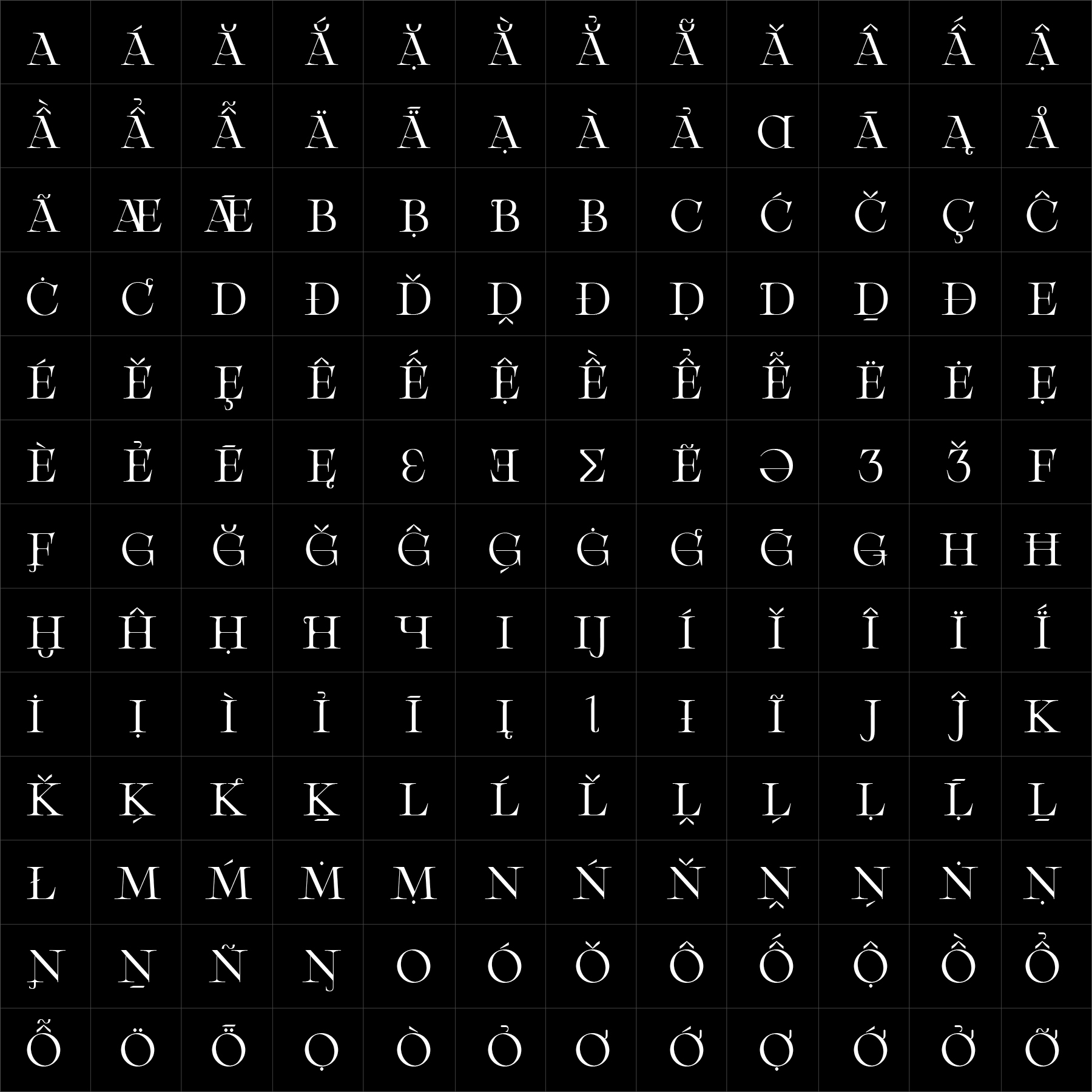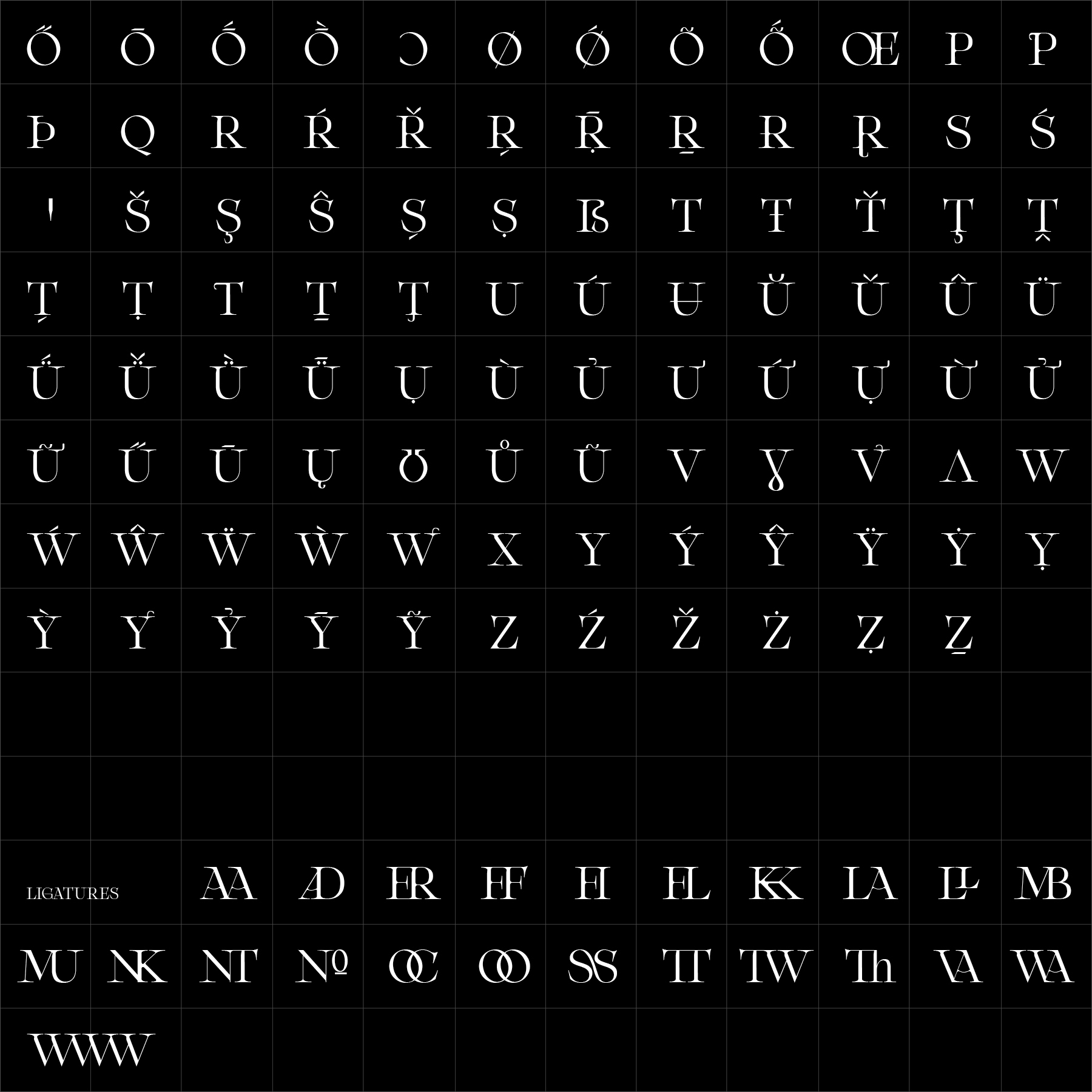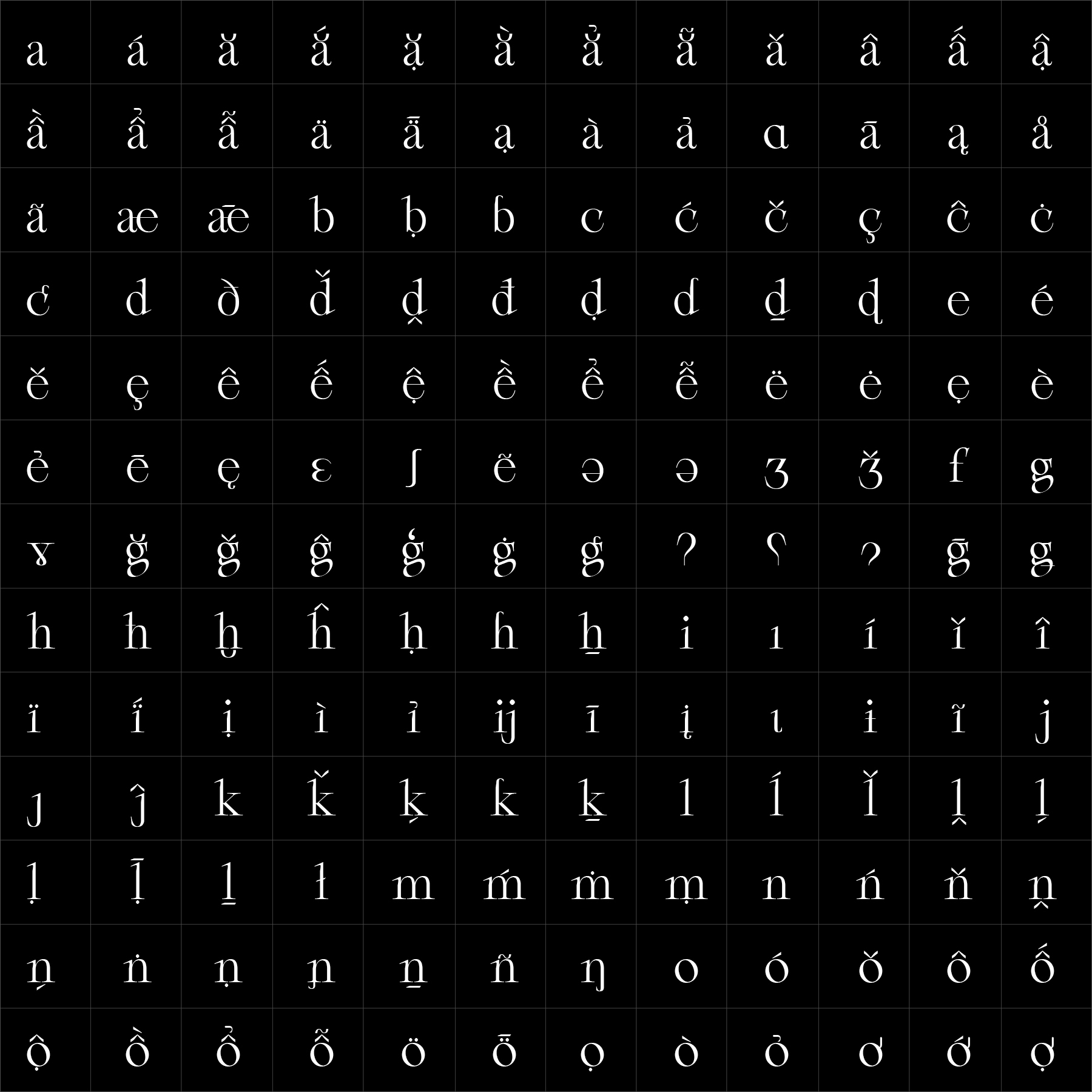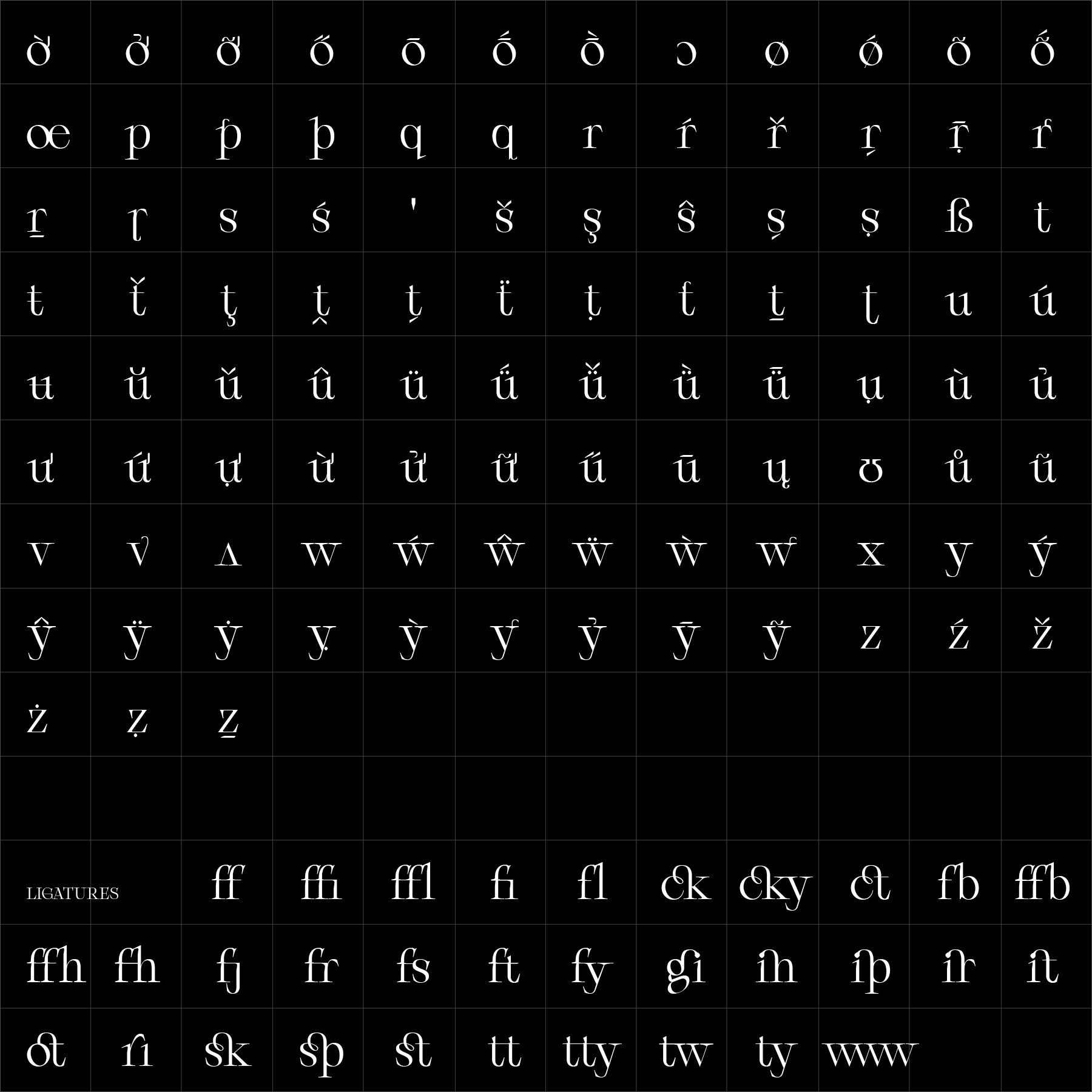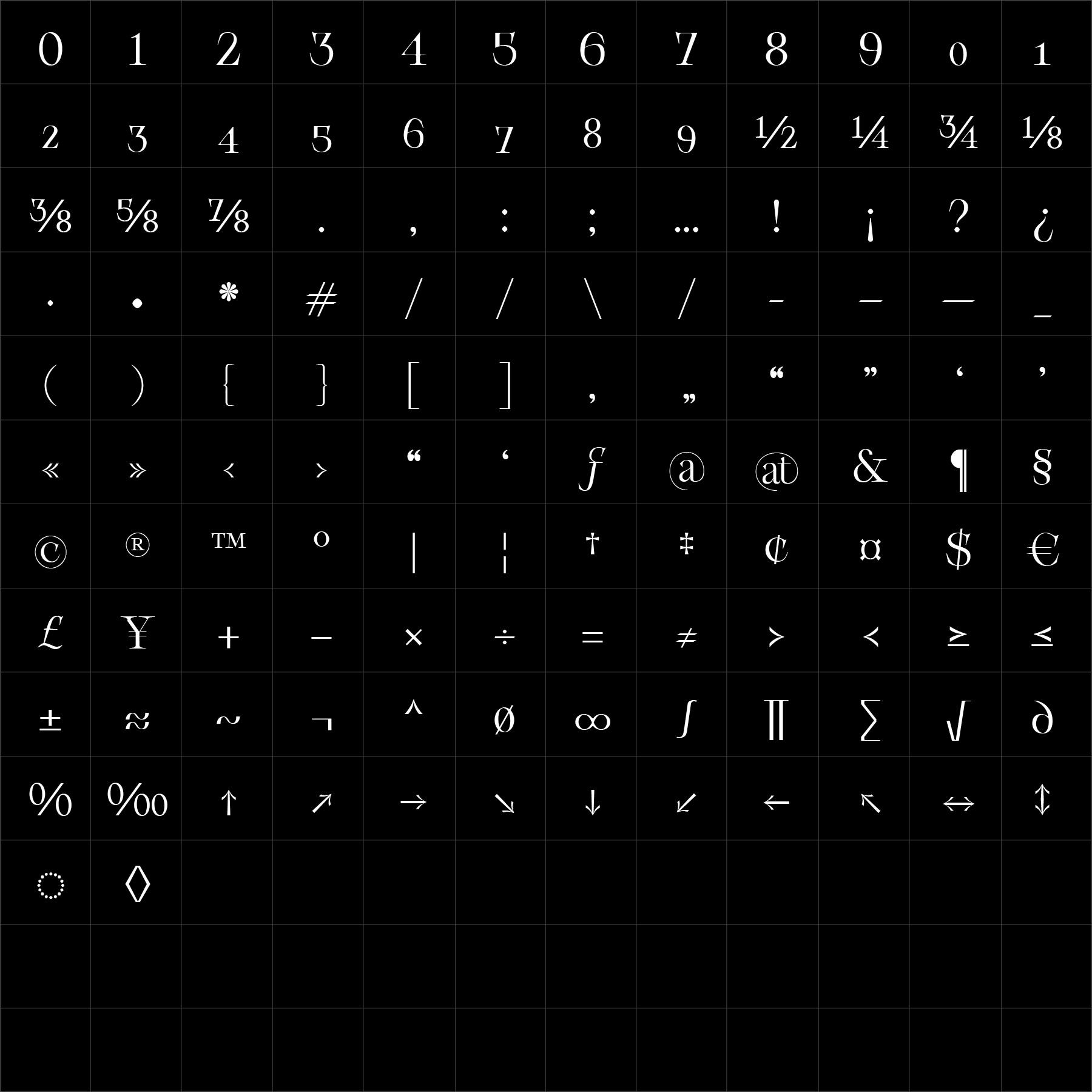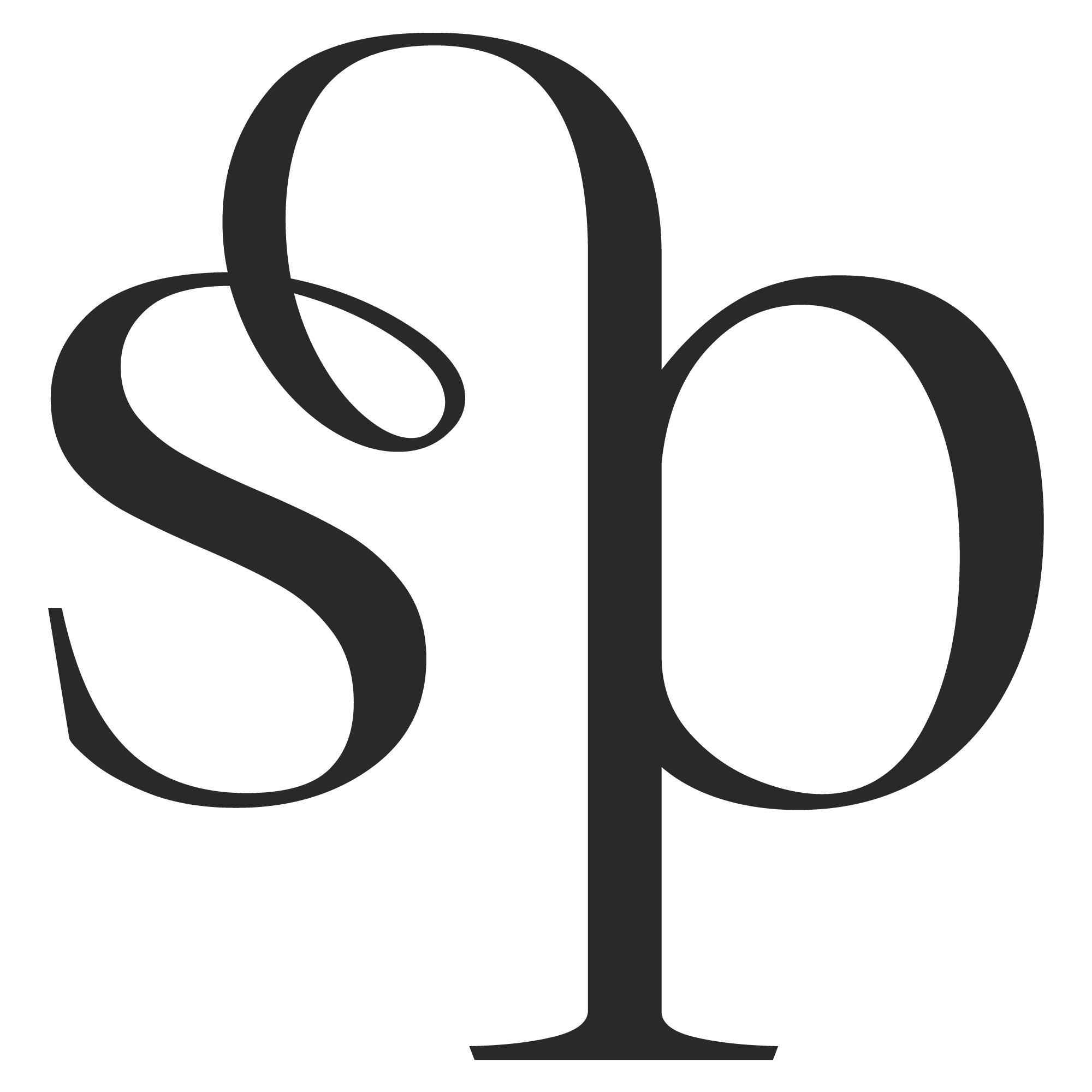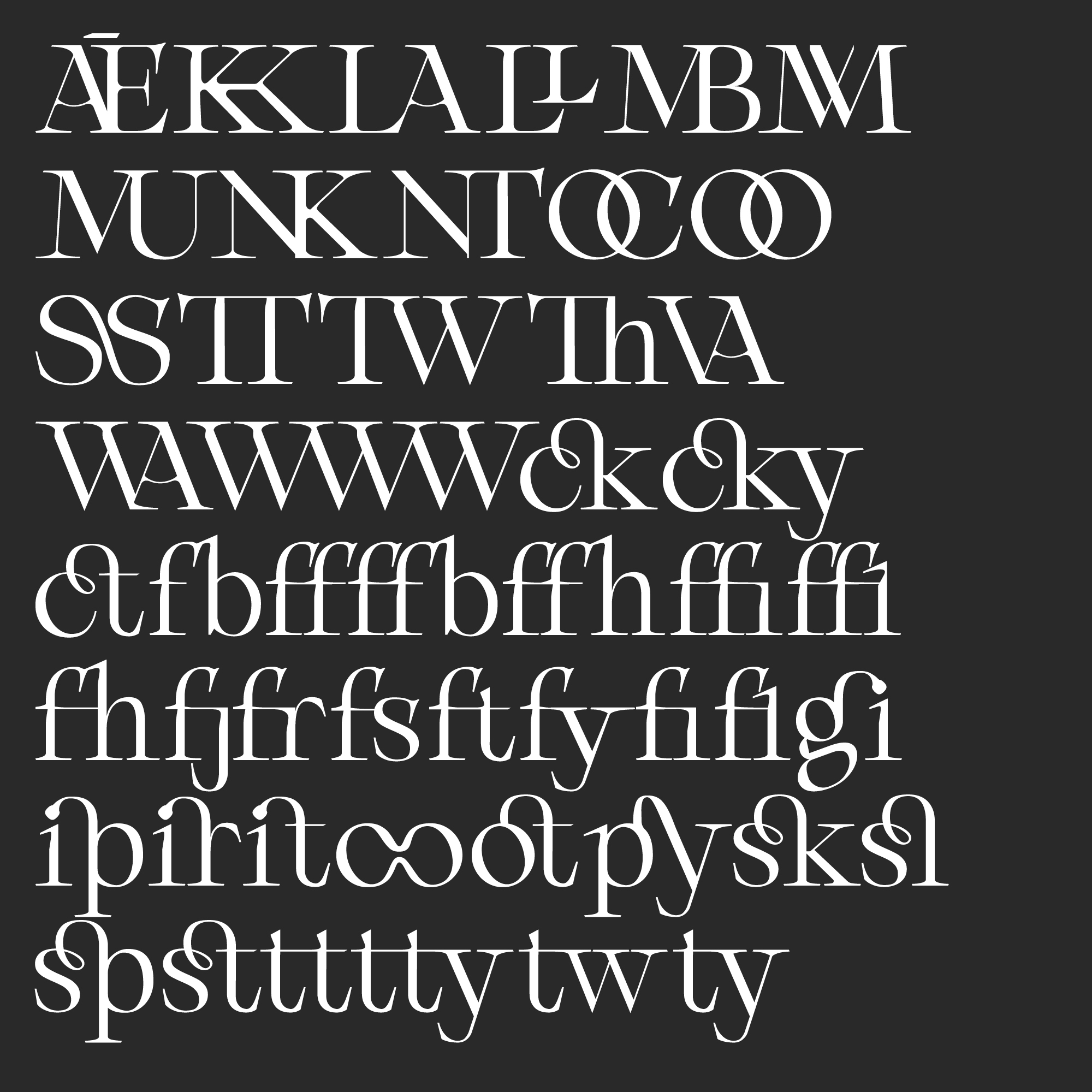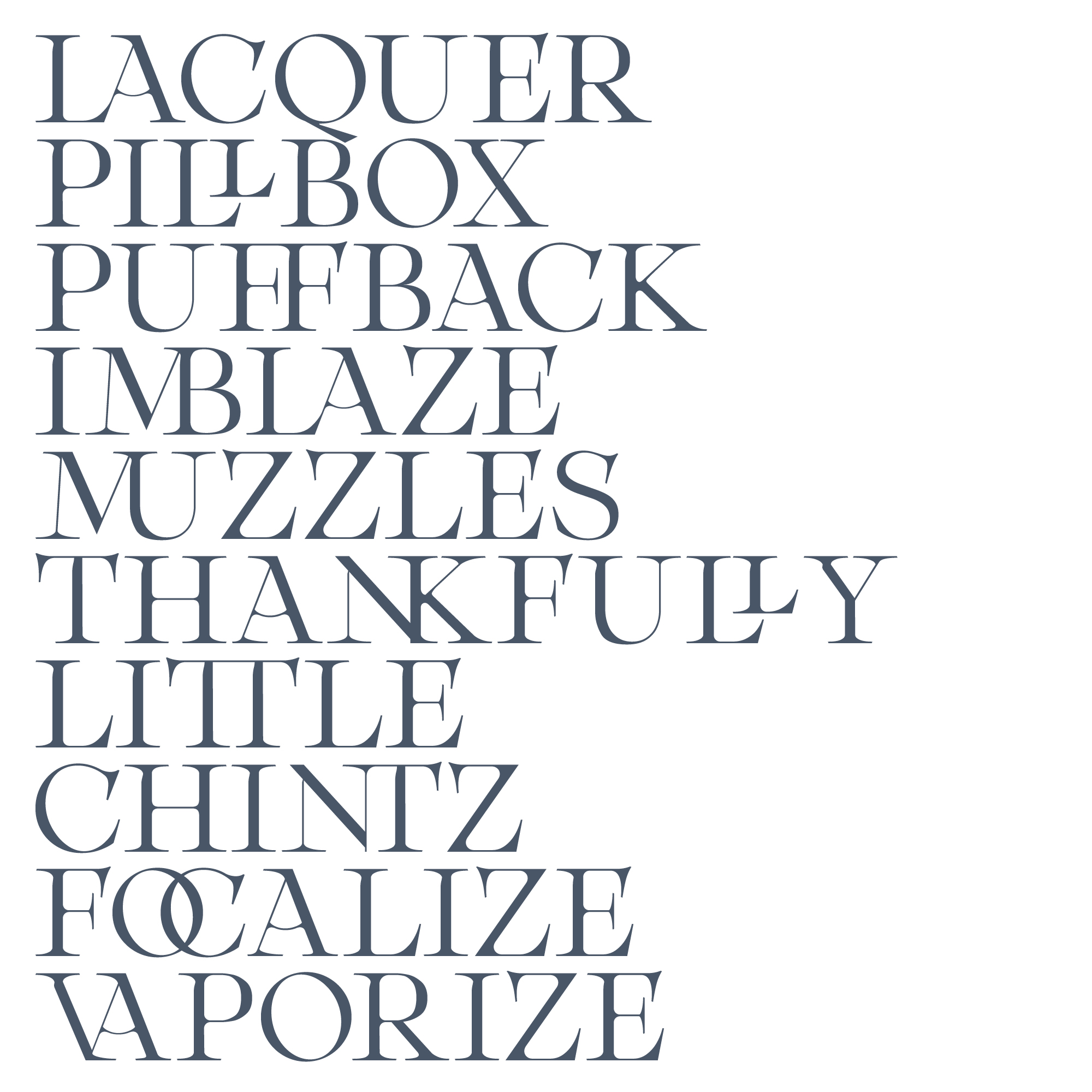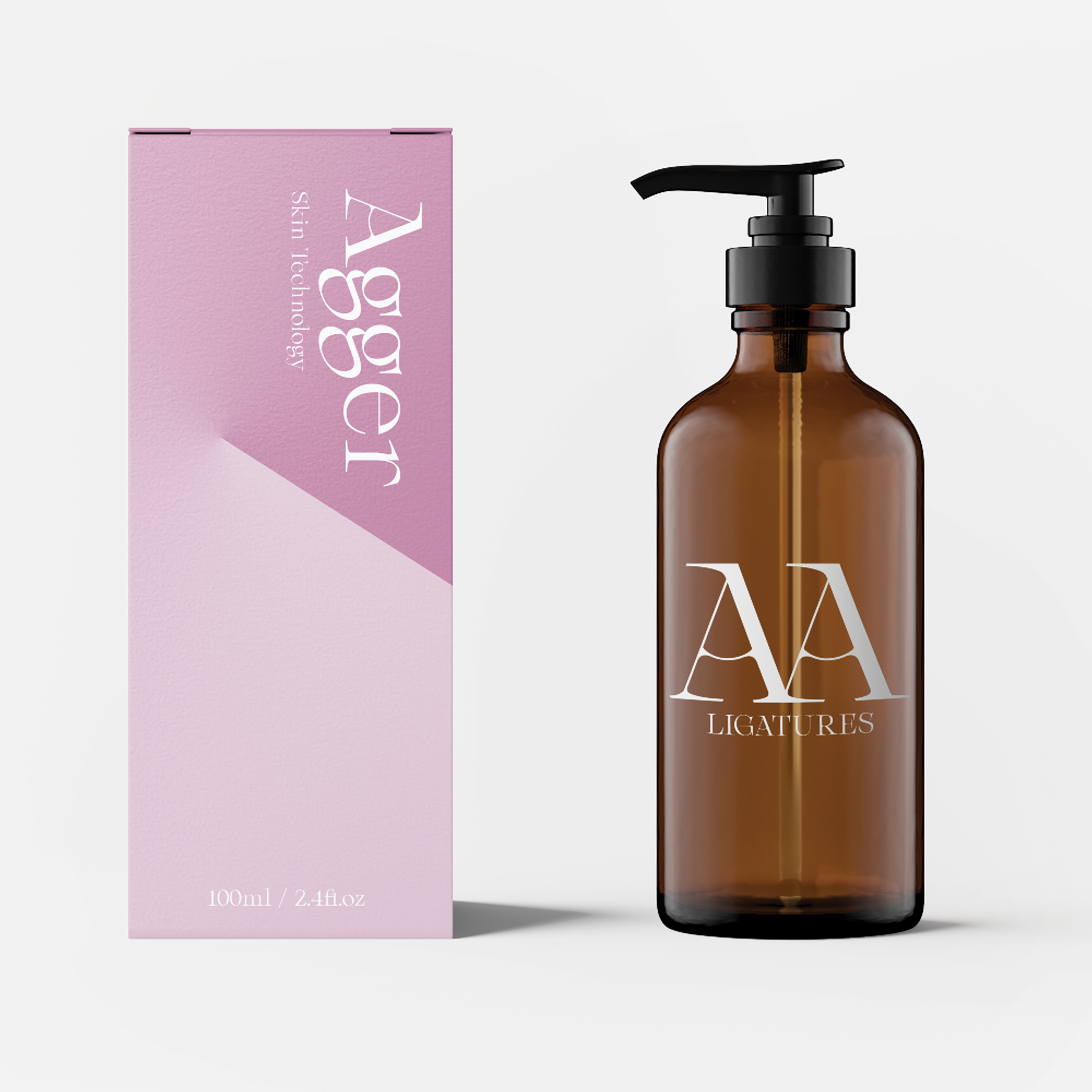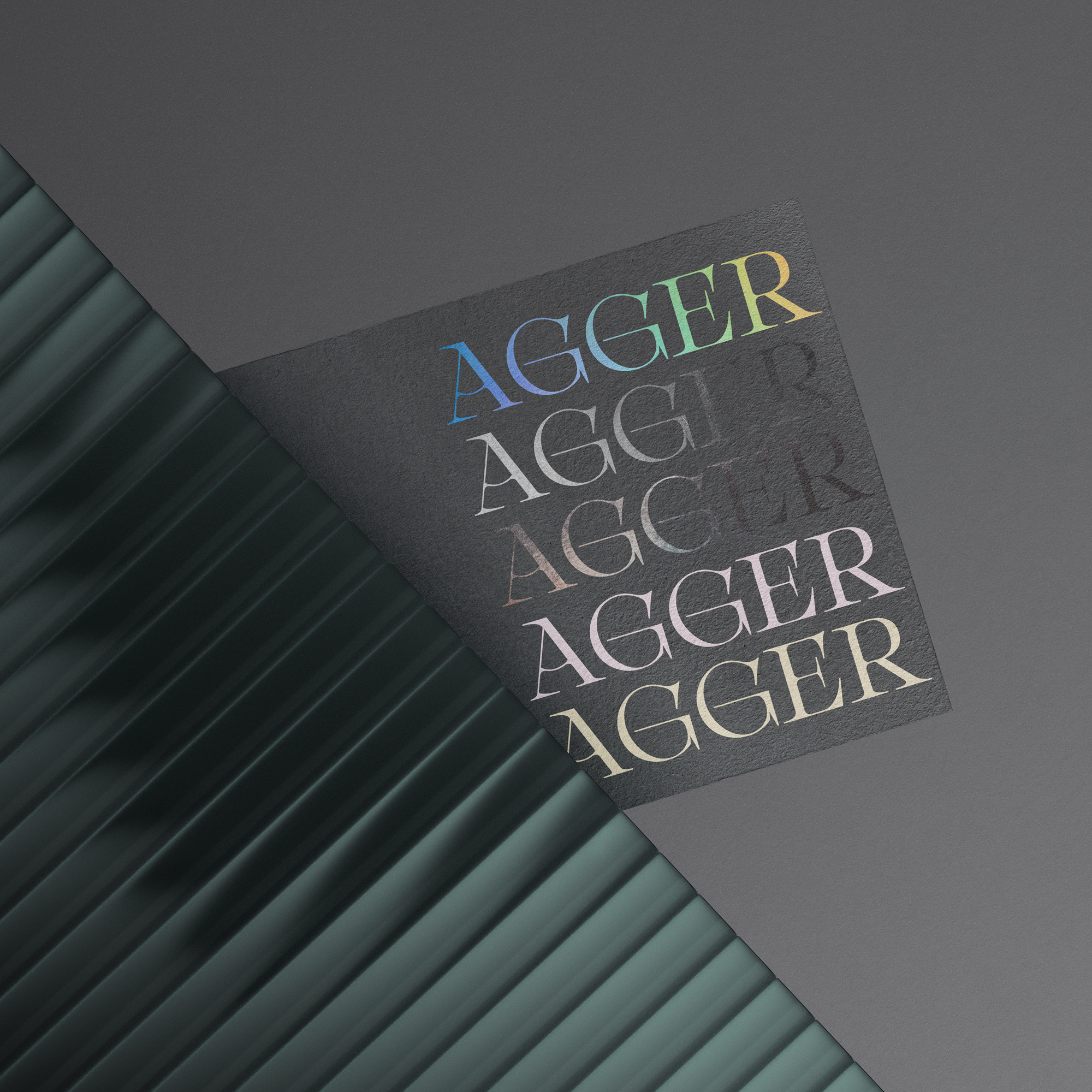
Agger Serif is a contemporary high-contrast serif designed with elegance, softness, and visual refinement in mind. Large open counters and flowing curved forms create a typographic texture that feels sophisticated while remaining approachable and highly legible.
The relationship between thick and thin strokes gives the family its distinctive rhythm and visual tension. Rather than feeling ornamental, the contrast is carefully moderated to maintain clarity across both editorial and display applications.
Agger Serif is particularly suited to luxury branding, beauty, fashion, and cultural projects where typography needs to communicate refinement without excess. The family combines classical serif influence with contemporary proportions, allowing it to feel both timeless and current.
Its elegant structure and expressive curves give designers a serif system capable of bringing atmosphere, sophistication, and identity to modern visual communication.